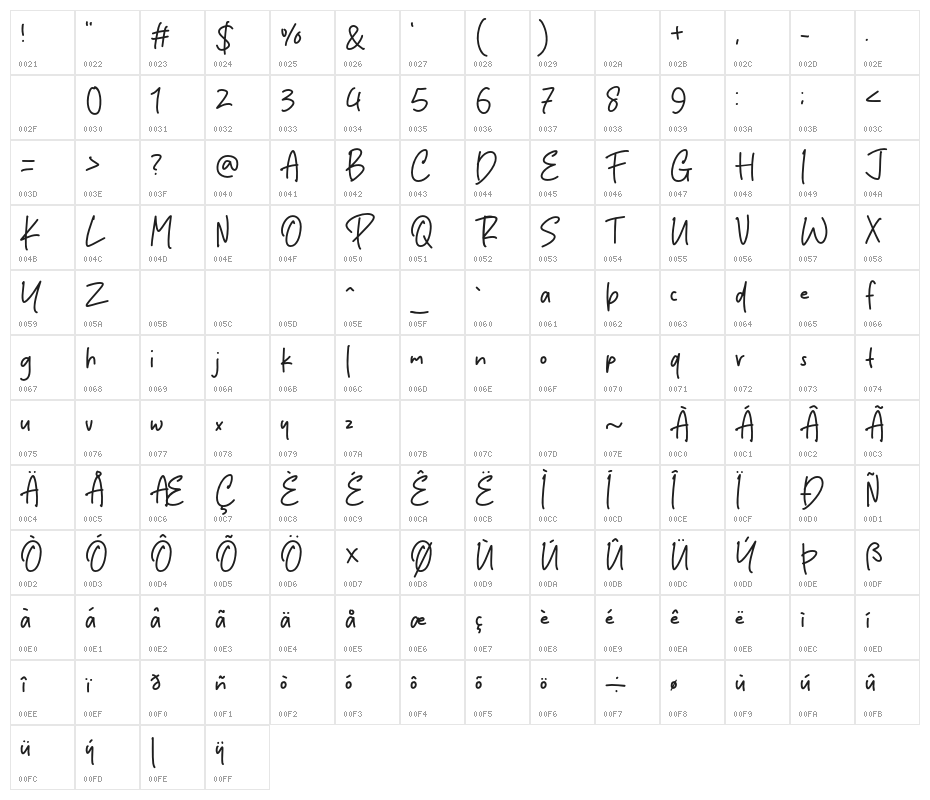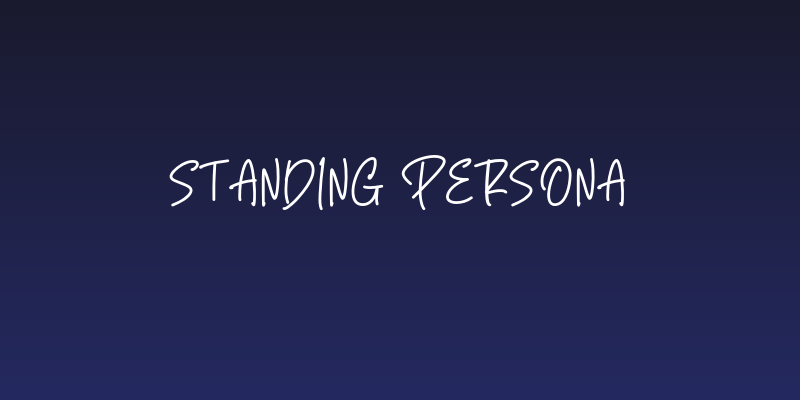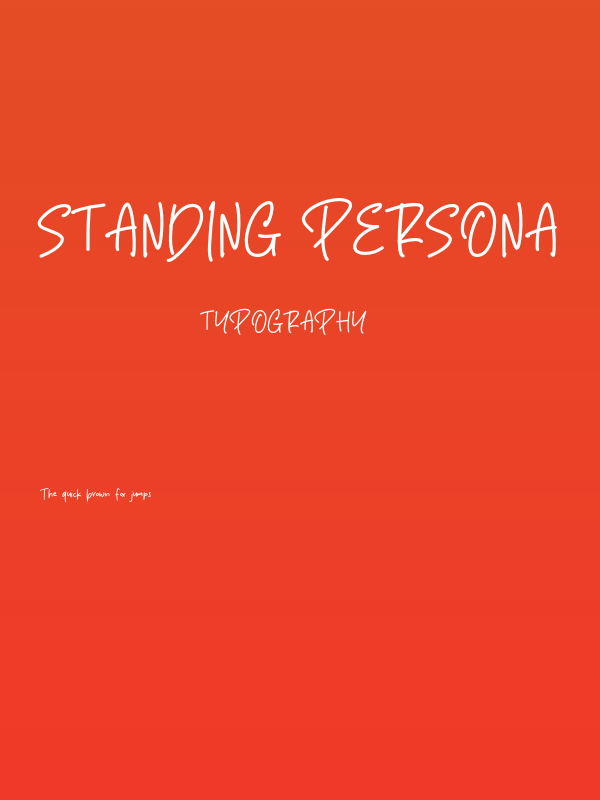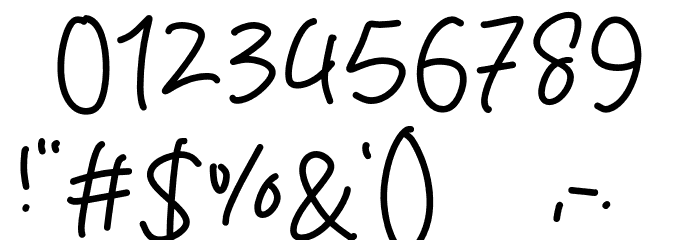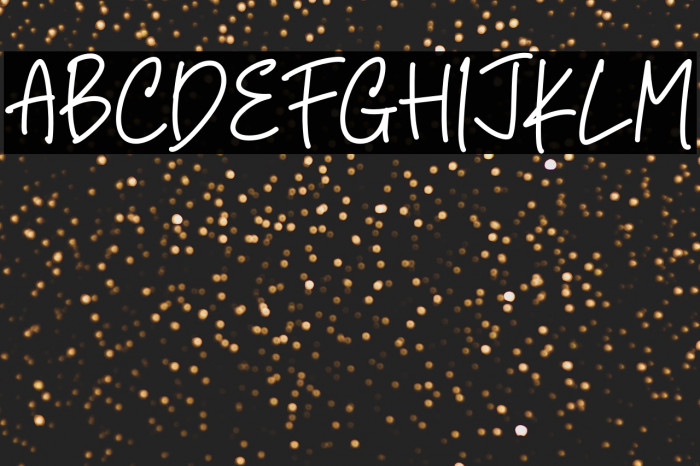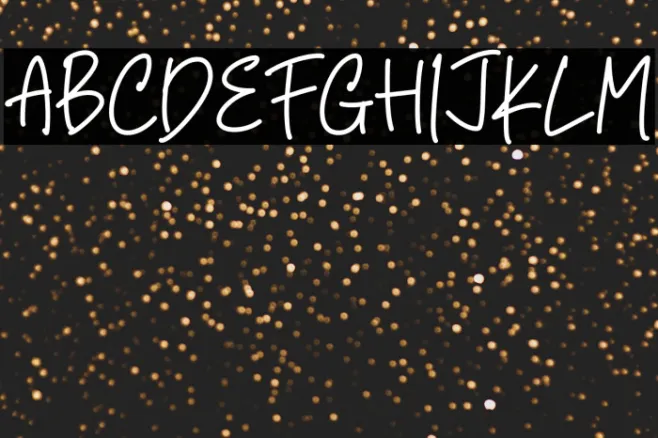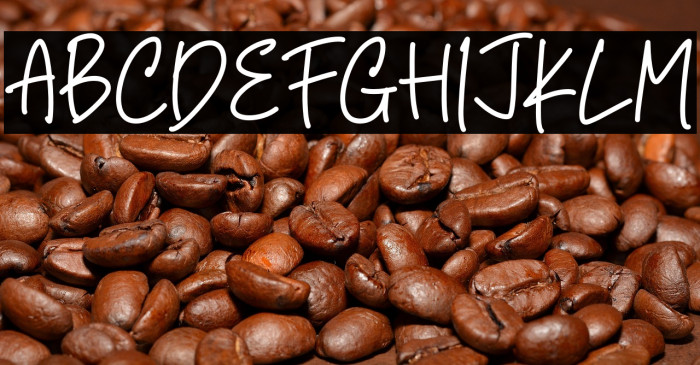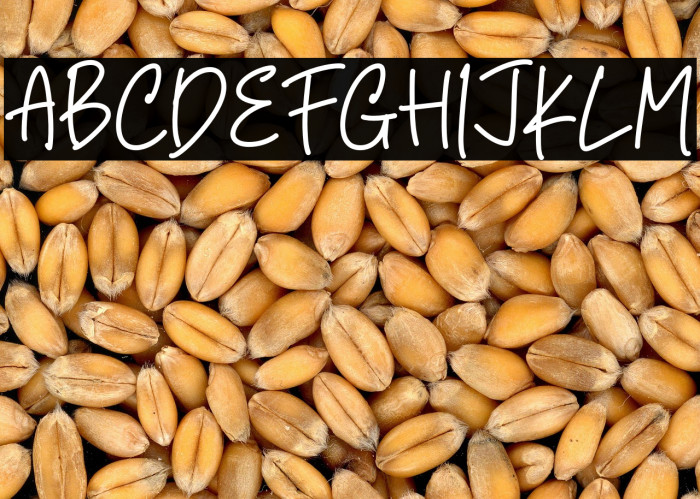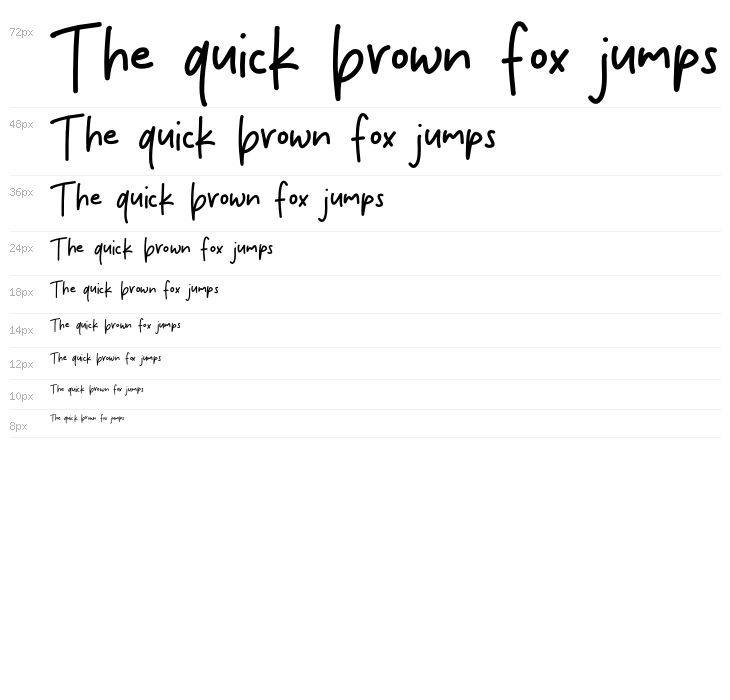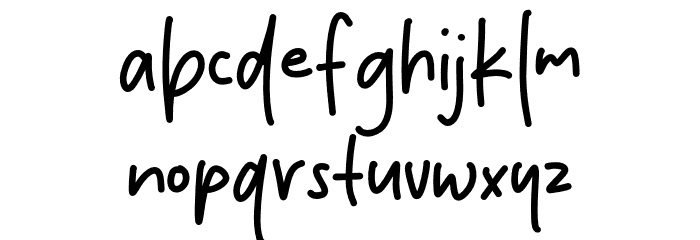
Standing Persona Font
Standing Persona Description
This font exhibits a casual, handwritten style with a playful and informal appearance. The letters are slightly slanted, giving a dynamic and energetic feel. The strokes are smooth and consistent, with a medium thickness that ensures readability while maintaining a personal touch. The uppercase and lowercase letters are well-balanced, and the numerals are clear and distinct. Special characters are included, enhancing its versatility for various uses. The overall look is friendly and approachable, making it suitable for creative and informal projects.
| Use Case | Logos, Headlines, Informal Text |
| Proposed Projects | Ideal for greeting cards, personal blogs, creative posters, and informal branding. |